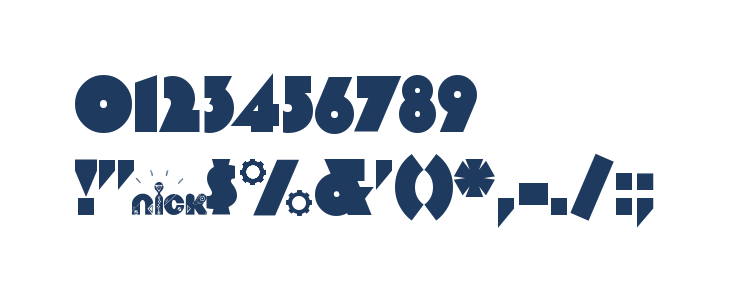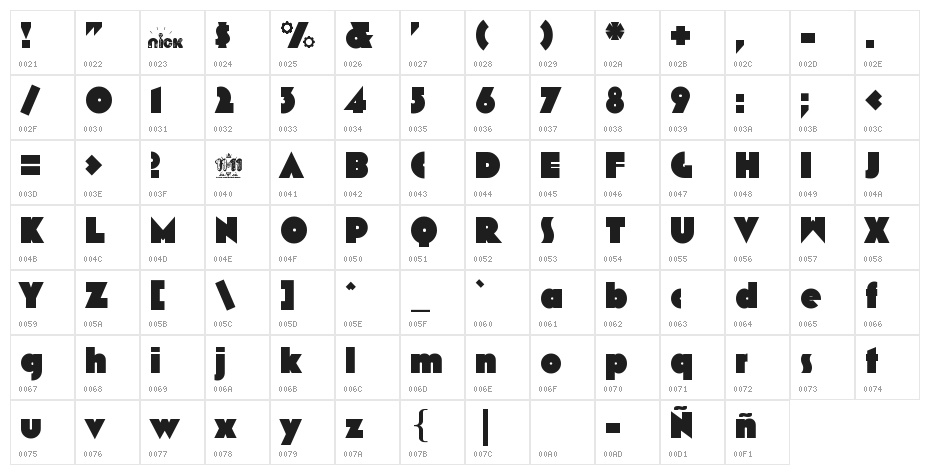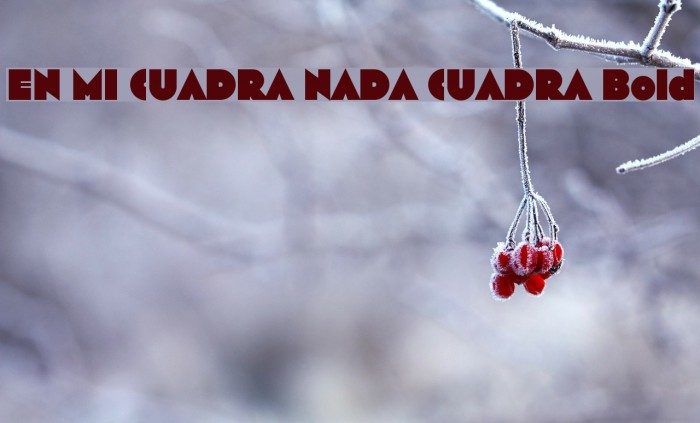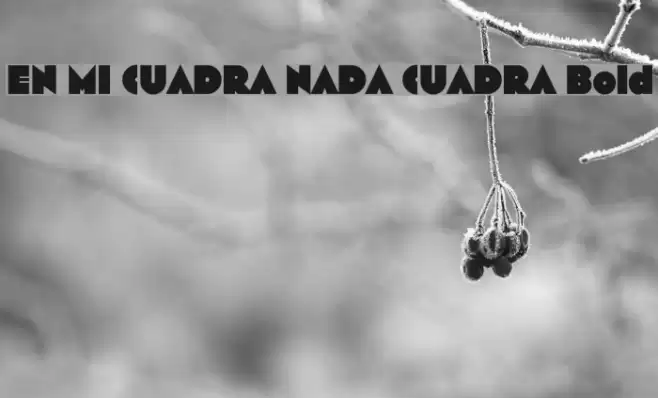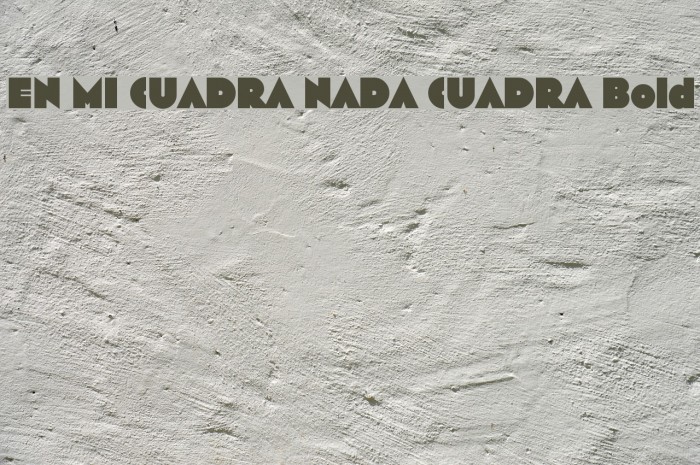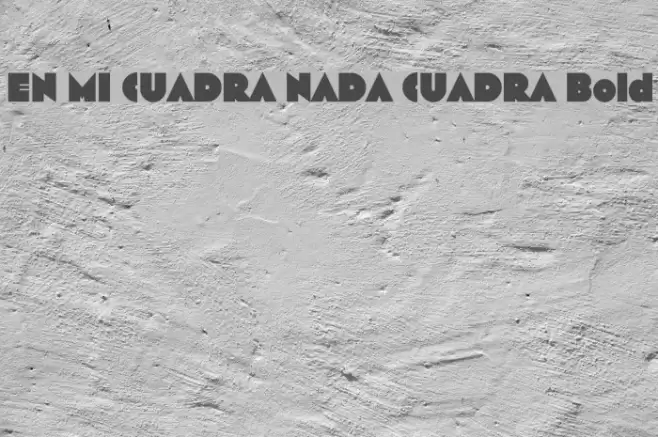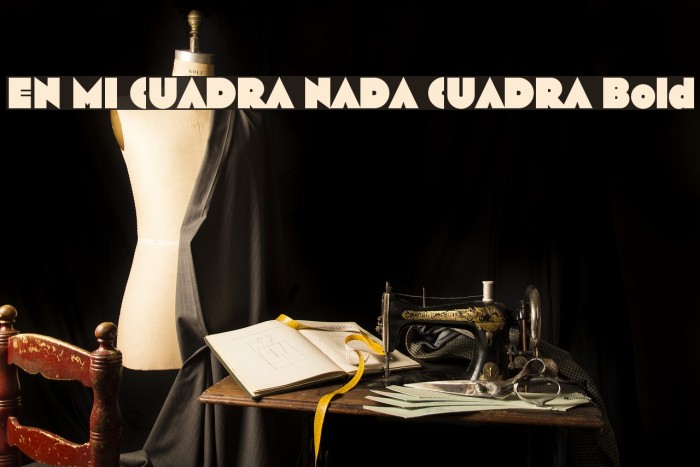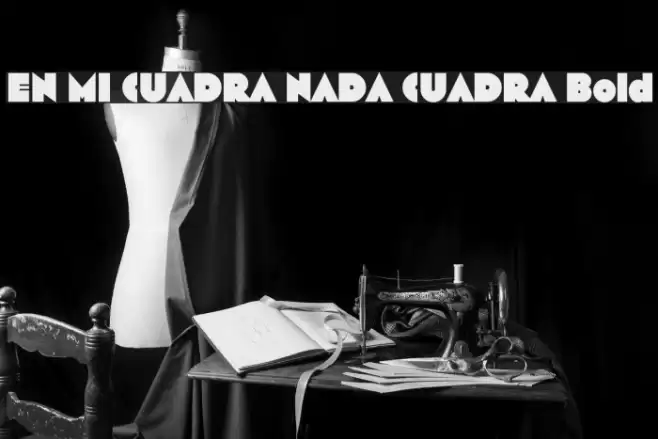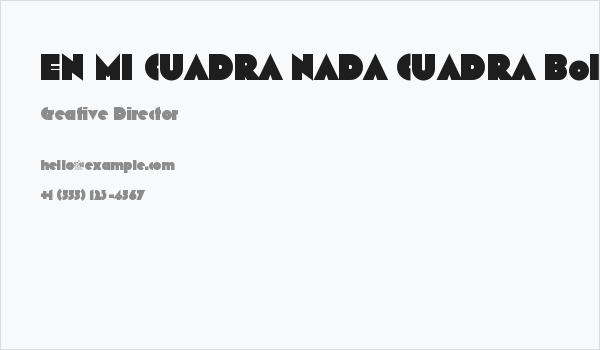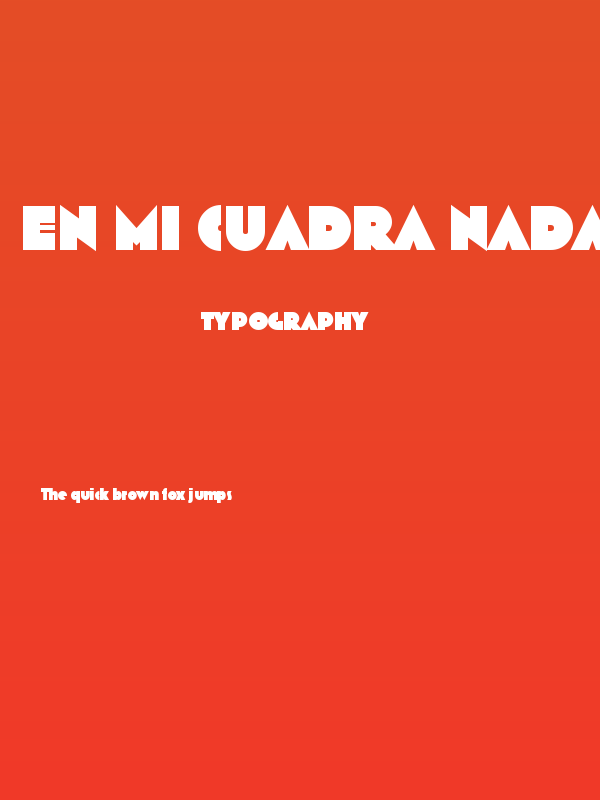
EN MI CUADRA NADA CUADRA Bold Font
EN MI CUADRA NADA CUADRA Bold Description
This bold, geometric font features strong, angular lines and a distinct blocky appearance. The uppercase letters are characterized by sharp edges and a uniform thickness, creating a powerful and impactful look. The lowercase letters maintain the boldness with rounded elements that contrast the angular uppercase, adding a touch of softness. Numbers are equally bold and geometric, ensuring consistency across all characters. Special characters are designed to match the overall aesthetic, with some incorporating unique design elements that enhance their visual appeal. This font is ideal for projects that require a strong visual presence and a modern, edgy feel.